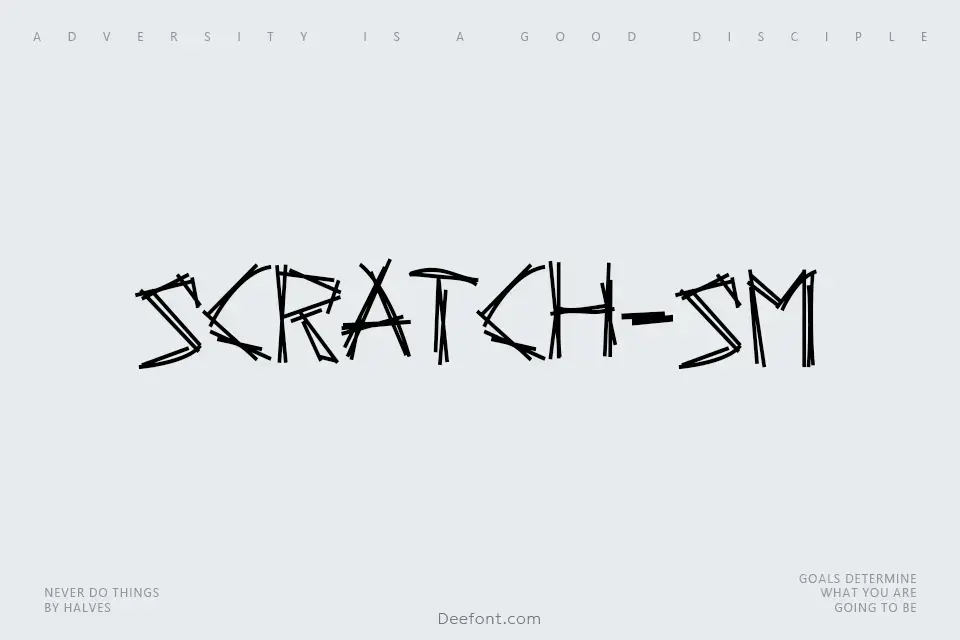
Scratch-SM Font
Scratch-SM Font is a bold and chaotic script typeface that captures the rebellious energy of urban grunge aesthetics. Designed by Union Sozialer Einrichtungen gGmbH, this font features jagged, scratchy strokes that mimic the look of hasty handwriting carved into a rough surface. Its distressed texture and aggressive edges make it an ideal choice for attention-grabbing designs, such as music festival posters, underground album covers, horror movie titles, and streetwear apparel. Whether used for a striking headline or an edgy logo, this font adds an authentic “trash” vibe and a raw, handcrafted feel to any creative project.****Hi there, this font is free to use for private purpose. We would appreciate it, if you could send a visual of how you used our font to mediengestaltung@u-s-e.org.****In case of commercial application, please contact us.